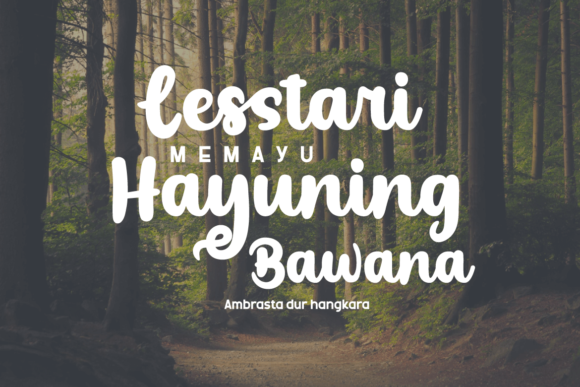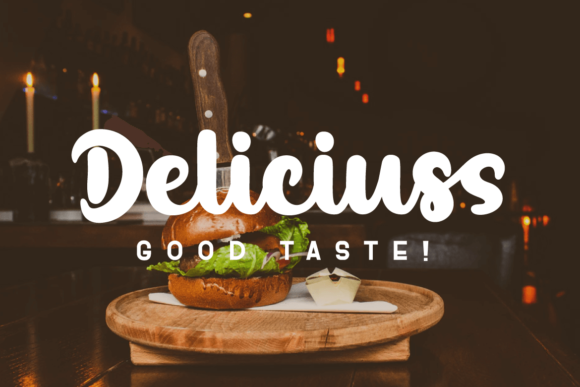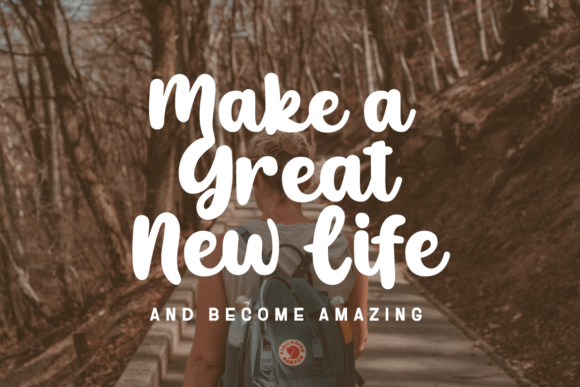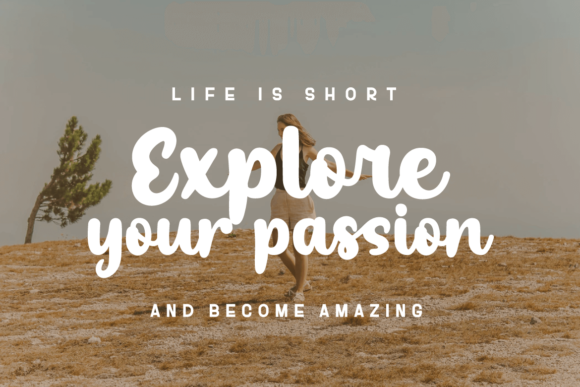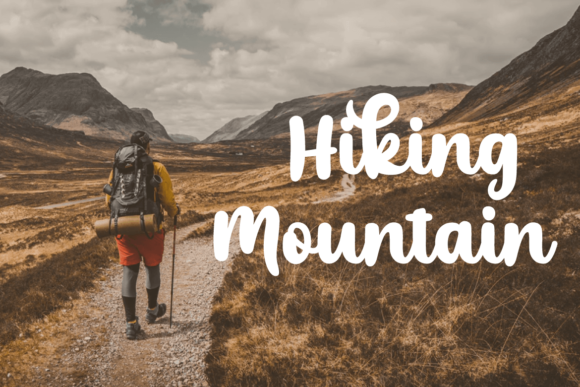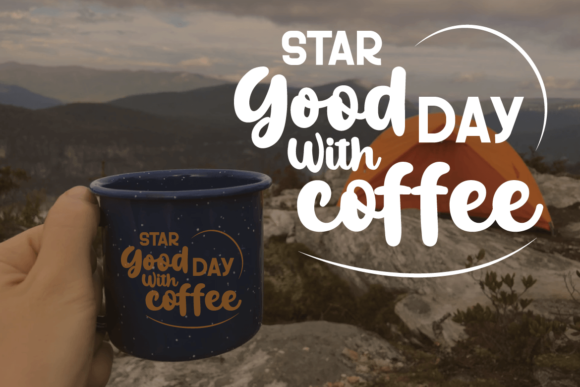
The Perfect Blend of Style and Substance: Unleashing the Power of Bosskuy Font
As a designer, have you ever stared at a blank canvas, struggling to find the perfect font to bring your vision to life? It’s that moment of creative frustration when you know exactly what you want, but can’t quite put your finger on it. That’s where Bosskuy Font comes in – a game-changing, bold, and flowing handwritten font that’s sure to make your designs stand out from the crowd.
Bosskuy Font is more than just a font – it’s a statement piece that adds a unique touch to any design. With its thick lettered, flowing script, it’s the perfect choice for creating eye-catching logos, branding, and quotes that leave a lasting impression. Whether you’re a seasoned designer or just starting out, Bosskuy Font is a valuable addition to your toolkit, guaranteed to elevate your designs to the next level.
Bosskuy Font Key Features
- Font Family: Bosskuy Font offers a variety of font styles, including bold, italic, and regular.
- Unique Characteristics: The Bosskuy Font features a unique, modern design with rounded edges and a friendly feel, making it suitable for various design projects.
Designer Review: Bosskuy Font
As a designer, I was excited to try out the Bosskuy Font, but my experience was a mixed bag. Here are my thoughts:
- Unique style: The Bosskuy Font has a quirky, hand-drawn feel that sets it apart from other fonts.
- Legibility: Despite its unconventional design, the font is surprisingly easy to read, even at smaller sizes.
- Customization options: The font comes with a range of weights and styles, making it versatile for different design applications.
- Lack of consistency: Some of the font’s weights and styles feel inconsistent, which can be jarring in certain design contexts.
- Not suitable for body text: While the font is great for headlines and titles, it’s not ideal for large blocks of body text due to its irregular letterforms.
Overall, I think the Bosskuy Font has potential, but its limitations hold it back from being a top choice for designers. If you’re looking for a unique font for a specific project, it might be worth considering. However, for everyday design work, there are better options available.
Tips for Getting the Most Out of Bosskuy Font
To get the most out of the Bosskuy Font, experiment with different font sizes and styles to create a unique and eye-catching design. Use it in combination with other fonts to add visual interest and depth.
The Bosskuy Font is ideal for use in creative projects such as logos, branding, and marketing materials. It’s also great for use in digital design projects such as social media graphics and website headers.
Alternatives to Bosskuy Font for Designers
The Great Vibes Font is a modern, elegant script font that is perfect for creating eye-catching headings and titles. It’s ideal for designers who want to add a touch of sophistication and style to their designs.
Compared to Bosskuy Font, Great Vibes Font has a more refined and polished look, making it suitable for high-end branding and marketing materials. It’s also more versatile and can be used for a wide range of designs, from fashion to luxury goods.
The Pacifico Font is a beautiful, handwritten font that is perfect for creating a relaxed and casual atmosphere. It’s ideal for designers who want to add a touch of warmth and personality to their designs.
Compared to Bosskuy Font, Pacifico Font has a more laid-back and informal look, making it suitable for designs such as blog posts, social media, and advertisements. It’s also more legible and easy to read, making it perfect for body text.